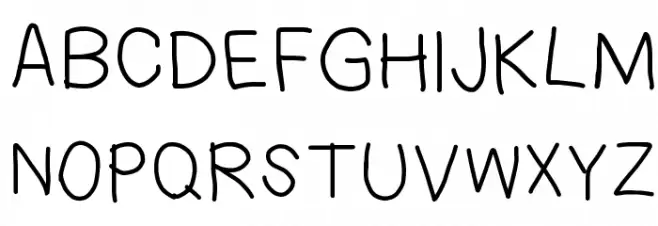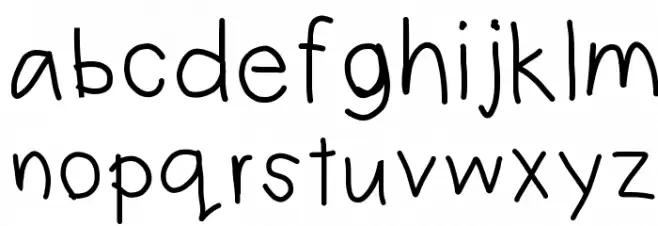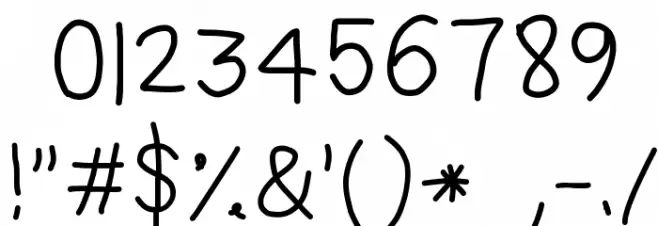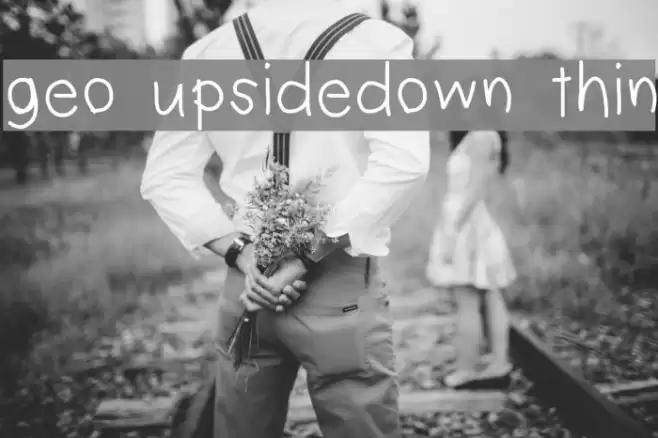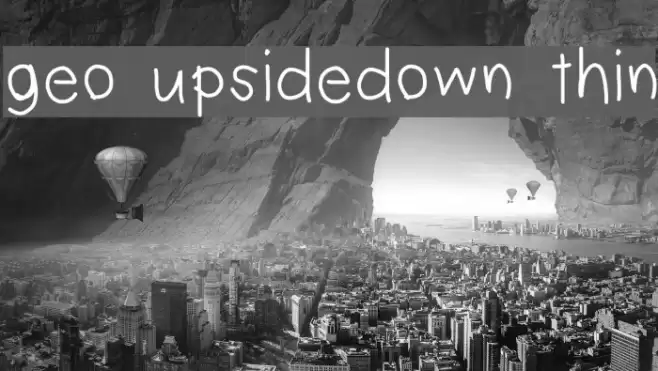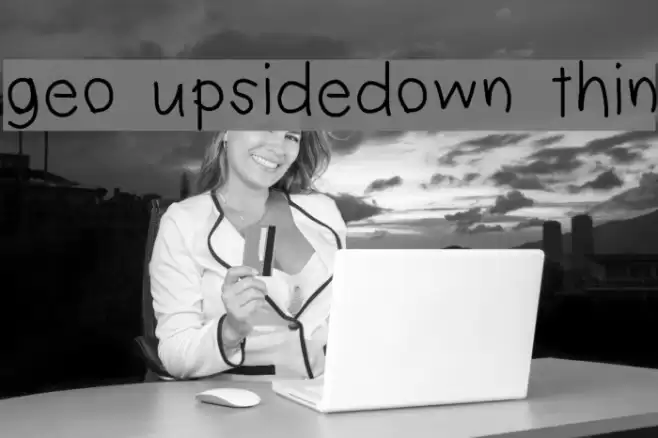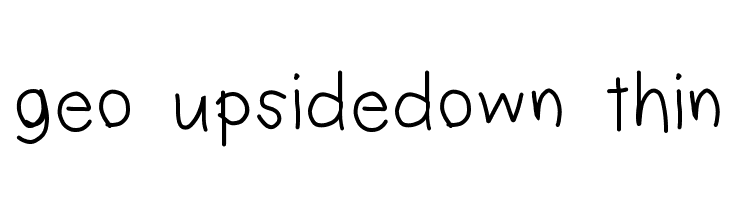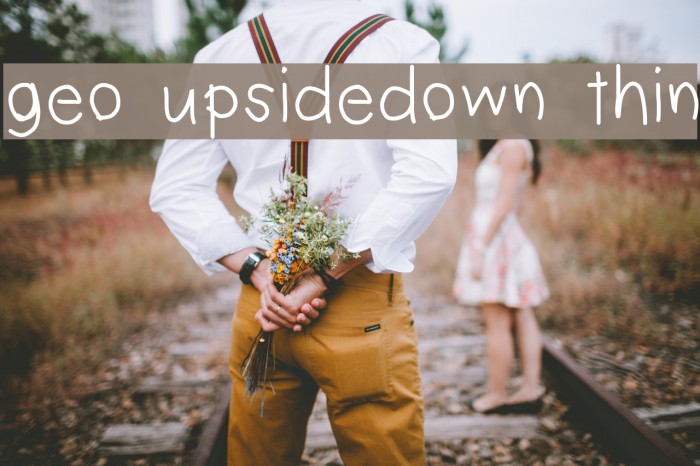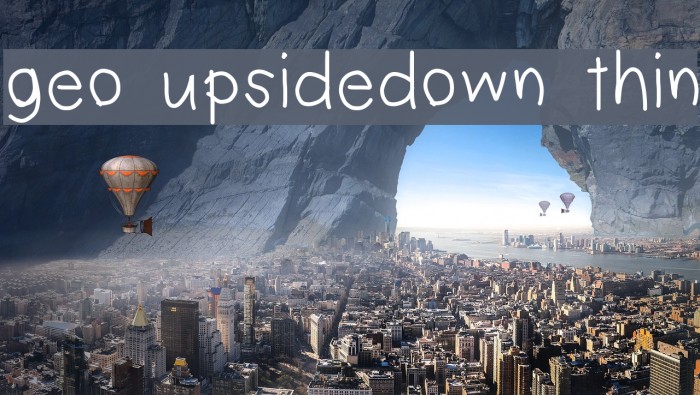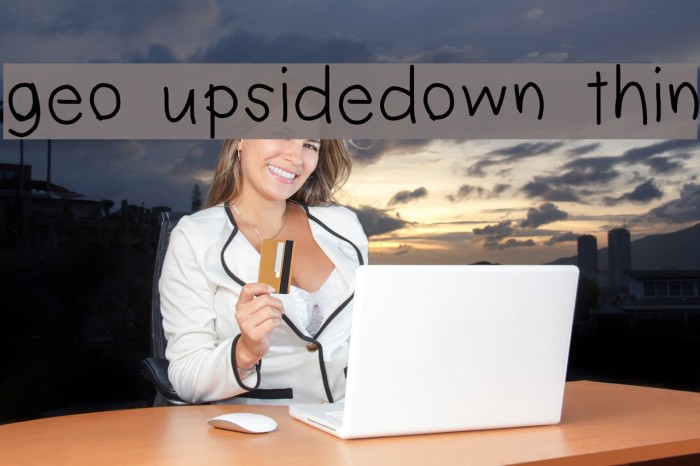
geo upsidedown thin
This font features a playful and casual handwritten style, characterized by its thin strokes and slightly irregular letterforms. The uppercase and lowercase letters maintain a consistent flow, with rounded edges and a friendly appearance. The numerals are clear and easy to read, matching the overall informal aesthetic. Special characters are included, complementing the font's whimsical nature. This font is ideal for projects that require a personal touch, such as greeting cards, children's books, or creative branding. Its simplicity and charm make it versatile for various design needs.
A playful, thin, handwritten font with a casual and friendly style.
- Proposed Projects: Greeting cards, children's books, creative branding, personal blogs, and informal invitations.
- Weight: Light
- Overall Style: Casual
- Use Case: Headlines, Logos, Informal text